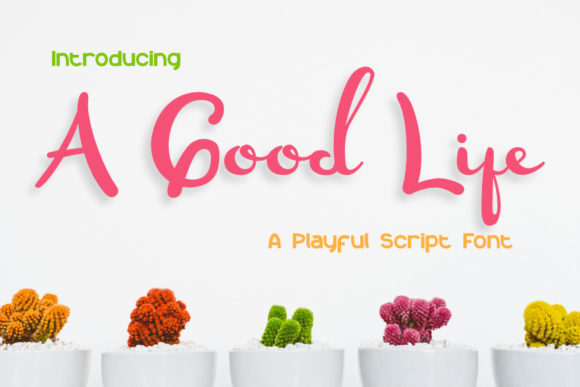
The Quest for the Perfect Font: Discovering A Good Life
I’ll never forget the time I was working on a project for a client who wanted a playful, yet elegant font for their branding. I spent hours scouring the internet, trying out font after font, but nothing seemed quite right. That was until I stumbled upon A Good Life, a delightful handwritten font that instantly captured the tone I was looking for. In this article, I’ll share my experience with A Good Life, and explore its features, uses, and alternatives.
An Honest Review of A Good Life
A Good Life is a playful and fun handwritten font that’s perfect for a variety of creative projects. Here’s what I love about it:
- ✨ Playful and whimsical: A Good Life has a carefree, hand-drawn feel that’s perfect for crafting, digital designing, presentations, or greeting cards making.
- 💕 Easy to read: Despite its playful nature, A Good Life is surprisingly easy to read, even at smaller font sizes.
Of course, no font is perfect, and A Good Life has a few small quirks:
- 🤔 Limited formal applications: While A Good Life is amazing for informal projects, it may not be the best choice for more formal or professional designs.
- ⚠️ Some letter variations: A few letters, like the uppercase “Q” and “X”, have slightly limited variations, which may be a consideration for some designers.
The Story Behind A Good Life
A Good Life was designed with the intention of creating a font that’s both fun and functional. The designer, inspired by the joy of everyday moments, aimed to craft a font that’s perfect for creative projects that bring people happiness.
| Font Name | A Good Life Font |
| Author | typocrisy.studio |
| What type of projects is A Good Life best suited for? | A Good Life is perfect for creative projects like crafting, digital designing, presentations, or greeting cards making. |
| Does A Good Life support OpenType features? | Yes, A Good Life supports OpenType features like ligatures and stylistic alternates, which can add visual interest to your designs. |